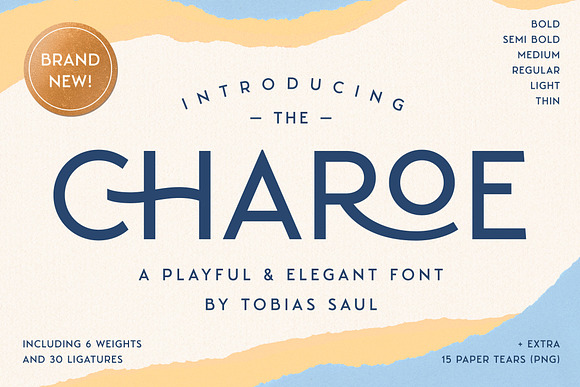
Charoe Typeface + Extras
Charoe Typeface is perfect for contemporary brand identities, modern tech company logos, innovative startup branding, cutting-edge product packaging, progressive web design, sophisticated mobile interfaces, forward-thinking marketing campaigns, creative agency materials, dynamic social media graphics, and versatile corporate communications.
What makes Charoe Typeface so exciting is its remarkable ability to embody contemporary sophistication and modern versatility through letterforms that seem engineered for the future of digital communication while maintaining timeless professional appeal. This dynamic typeface captures the essence of progressive design and technological advancement with characters that radiate innovation, clarity, and the kind of forward-thinking aesthetic that defines successful modern brands. The font's contemporary design elements perfectly balance cutting-edge style with universal accessibility, creating an indispensable tool that communicates innovation leadership, professional competence, and modern sophistication, making it essential for organizations positioning themselves at the forefront of their industries and digital evolution.
Charoe Typeface comes in multiple font families including Regular, Bold, Light, Italic, Bold Italic, Modern, Progressive, and Dynamic variations. Each family member maintains the core contemporary characteristics while offering different sophistication levels and stylistic approaches to suit various modern branding and digital design requirements.
The Charoe Typeface Free Download provides modern businesses and progressive organizations with an exceptional resource for creating sophisticated materials that resonate with contemporary audiences seeking innovation and digital excellence. This remarkable typeface distinguishes itself through its unique ability to communicate themes of modern leadership, technological advancement, and progressive thinking. Whether you're developing tech startup identities, creating innovative product campaigns, or designing contemporary brand experiences, this font ensures your message projects the cutting-edge sophistication and professional credibility that modern markets demand from industry leaders and digital innovators.
The contemporary precision in Charoe Typeface makes it particularly effective for technology companies and forward-thinking organizations where conveying modern expertise and digital leadership is crucial for competitive advantage and market positioning. Its versatile letterforms work exceptionally well across all contemporary applications, from mobile interfaces to corporate headquarters signage, maintaining consistent modern impact while providing maximum flexibility for diverse digital and print needs.
Modern branding professionals recognize how Charoe Typeface transforms ordinary business communications into powerful statements of contemporary excellence and digital sophistication. The typeface's comprehensive character set includes extensive international language support, modern symbols, and advanced typographic features that accommodate complex contemporary branding requirements and global digital market applications.
For creative professionals serving technology innovators, progressive startups, and contemporary lifestyle brands, Charoe Typeface serves as the ultimate foundation for establishing memorable visual identities that capture the essential qualities of modern sophistication, technological leadership, and progressive innovation that define successful brands shaping the future of digital communication and contemporary business excellence in competitive global markets.